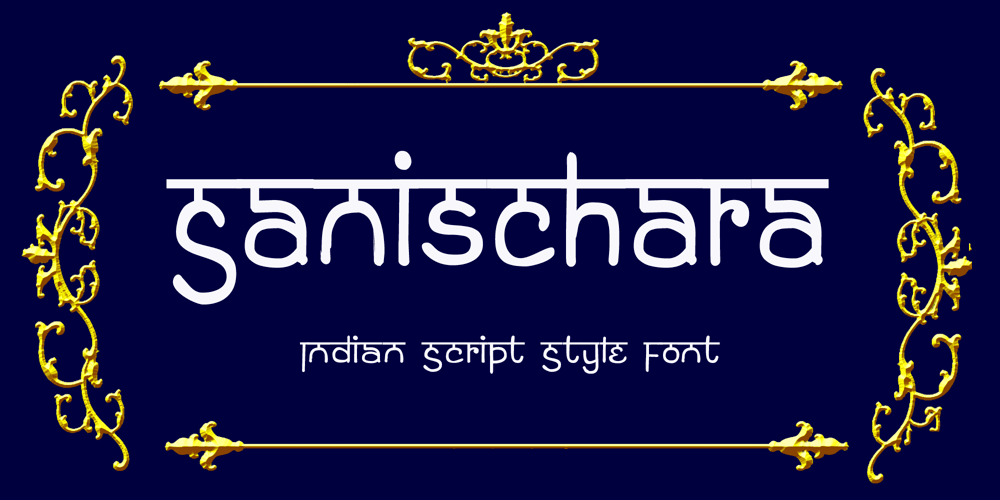
Sanischara Font Family was designed by bsmbang wisudyantoro and published by Beewest Studio. Sanischara contains 1 styles and family package options. Sanschara Font is latinANS font that mitatiing ndian Traditional Devanagari Font. This Font is Very niice to apply in Yoga Brand Logo , Spa, Indian Secipes Book, Indian Philosophy Book, Apharels and more. This Font is organic made from hand drawing, that why it is look very natural and simple.